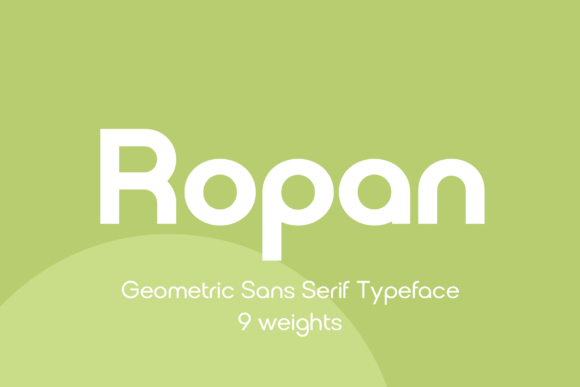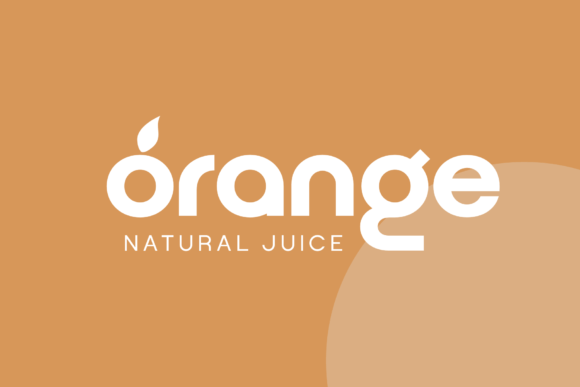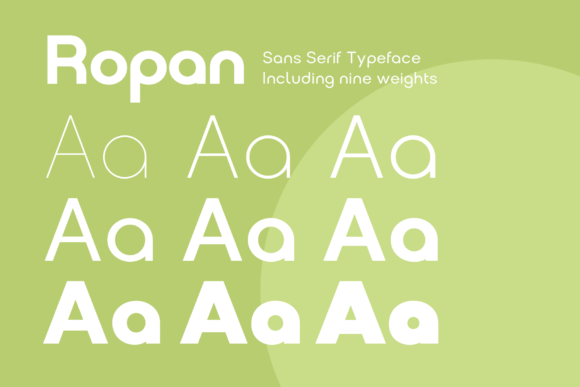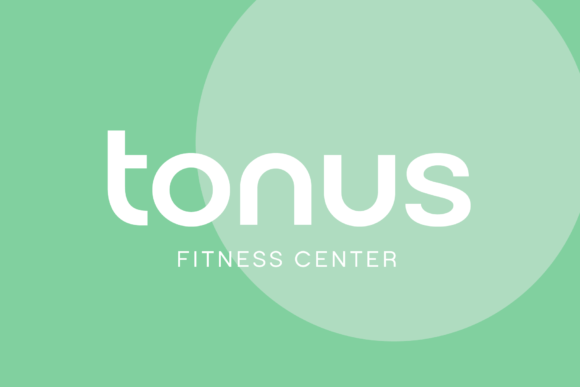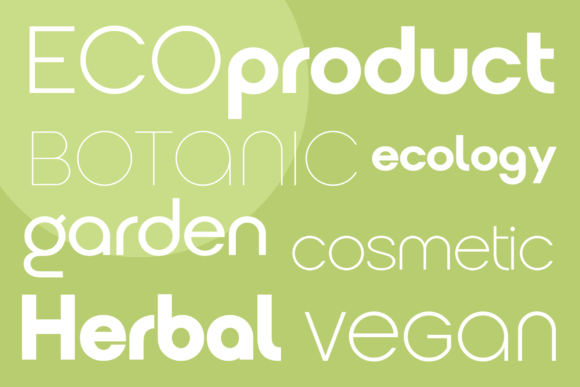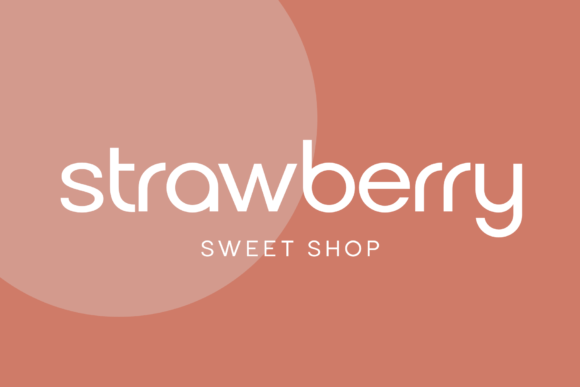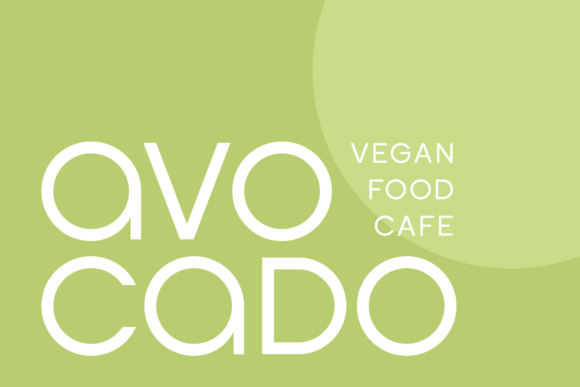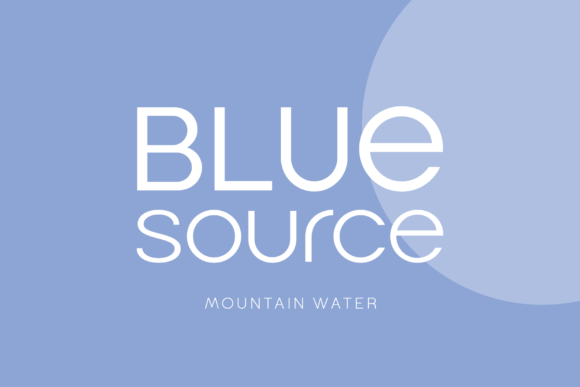
Ropan Font
Ropan this is a modern geometric sans-serif font that includes nine weights from thin to black.
This multi-purpose font captures a huge range for the design and creation of your project. Ropan will perfectly cope with a variety of tasks and he will always look stylish and modern. With it, you can create logos, labels, use in advertising, packaging, branding, book covers and magazines, cosmetics, banners, posters, headings, descriptions and much more. This font is easy to use has OpenType features.